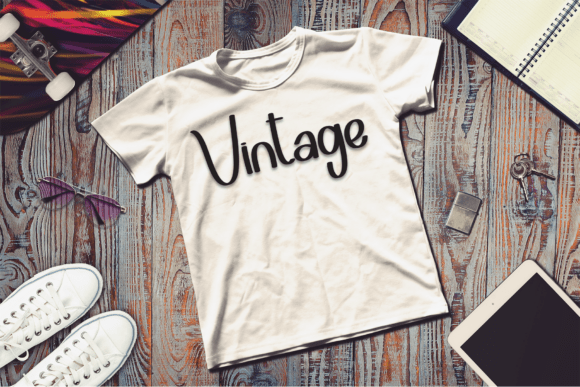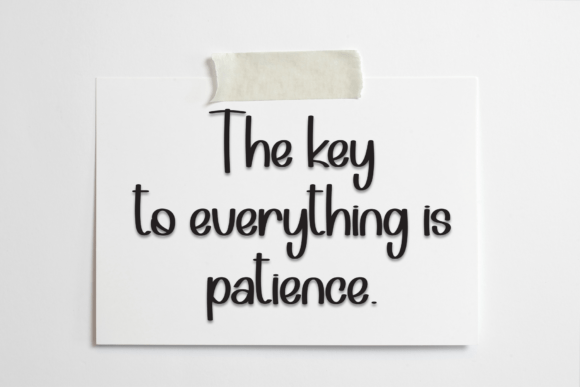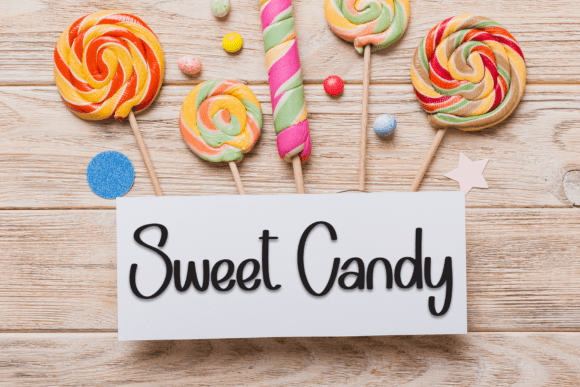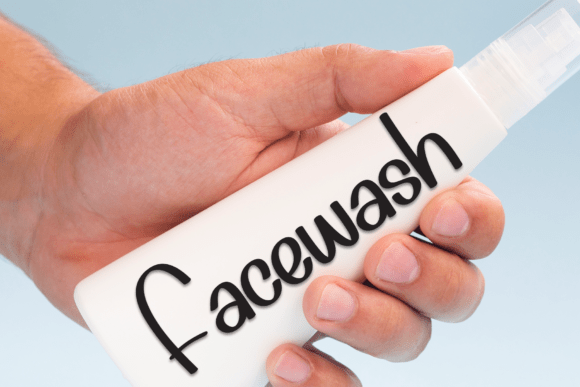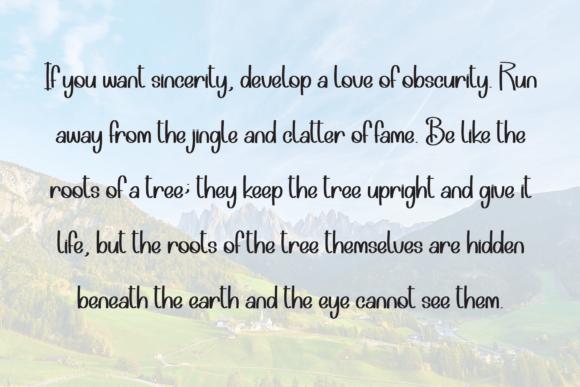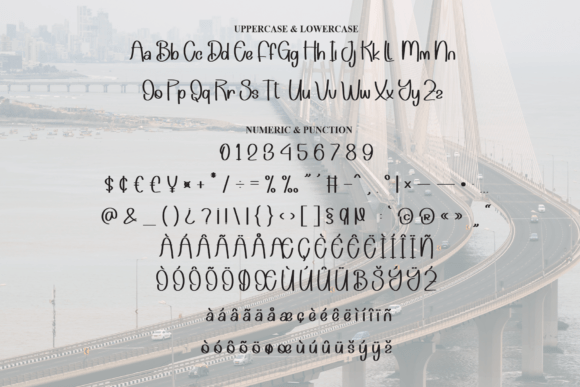
Bridges Font: The Perfect Blend of Warmth and Clarity for Your Design Projects
In the world of typography, a font can make or break the visual appeal of a design project. With thousands of fonts available, finding the right one that conveys the desired message and resonates with your audience can be a daunting task. However, if you’re looking for a font that exudes warmth, clarity, and approachability, look no further than Bridges Font. Designed to bring a touch of casual elegance to your projects, Bridges Font has become a popular choice among designers and crafters alike.
The Characteristics of Bridges Font
Bridges Font is a display font that boasts a clean structure and a neat, casual style. Its balanced letterforms are carefully crafted to provide exceptional readability, making it perfect for a wide range of applications, from branding and headlines to everyday designs. The font’s approachable style and charming aesthetic make every message feel genuine and inviting, allowing you to connect with your audience on a deeper level.
Key Features of Bridges Font
- Clean Structure: Bridges Font features a clean and well-organized structure that ensures clarity and legibility, even at smaller font sizes.
- Approachable Style: The font’s casual and neat style makes it perfect for designs that require a friendly and approachable tone.
- Balanced Letterforms: The carefully crafted letterforms provide exceptional readability and charm, making every message feel genuine and inviting.
- Versatility: Bridges Font is suitable for a wide range of applications, including branding, headlines, posters, flyers, and everyday designs.
Why Choose Bridges Font?
With so many fonts available, why should you choose Bridges Font for your design projects? Here are just a few reasons:
- Unique Aesthetic: Bridges Font offers a unique blend of warmth and clarity that sets it apart from other fonts.
- Improved Readability: The font’s clean structure and balanced letterforms ensure exceptional readability, making it perfect for designs that require clear communication.
- Time-Saving: With Bridges Font, you can save time and effort in finding the perfect font for your project, allowing you to focus on other creative aspects.
- High-Quality Design: Bridges Font is designed with high-quality craftsmanship, ensuring that your designs look professional and polished.
How to Use Bridges Font in Your Design Projects
Using Bridges Font in your design projects is easy and straightforward. Here are a few tips to get you started:
- Branding: Use Bridges Font to create a consistent brand identity that exudes warmth and approachability.
- Headlines: Add a touch of elegance to your headlines with Bridges Font, perfect for posters, flyers, and social media graphics.
- Everyday Designs: Use Bridges Font in your everyday designs, such as business cards, brochures, and website content, to add a touch of warmth and clarity.
In conclusion, Bridges Font is a versatile and charming display font that is perfect for designers and crafters looking to add a touch of warmth and clarity to their projects. With its clean structure, approachable style, and balanced letterforms, Bridges Font is an excellent choice for a wide range of applications. Whether you’re working on a branding project, creating headlines, or designing everyday materials, Bridges Font is sure to become your go-to font for all your design needs.